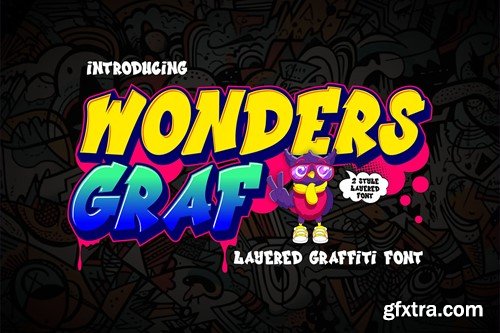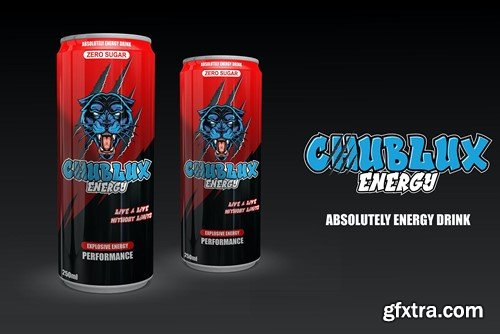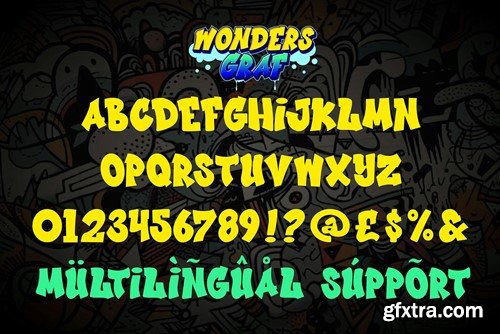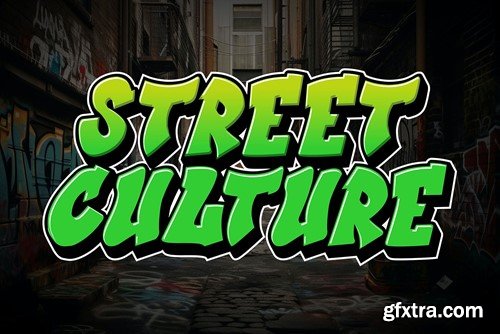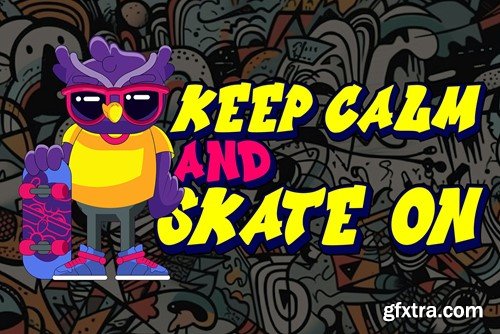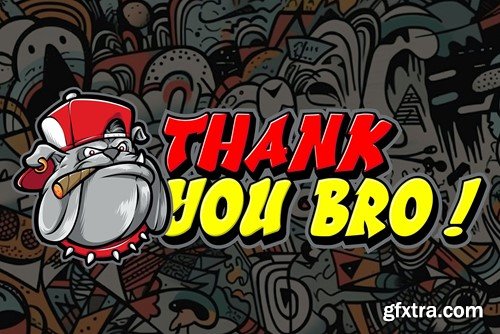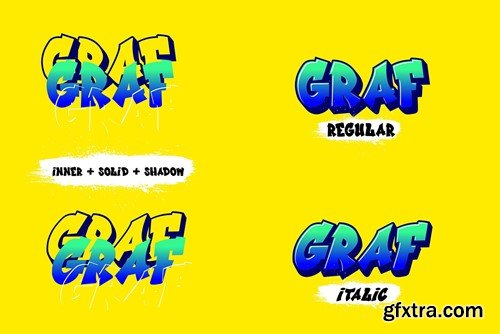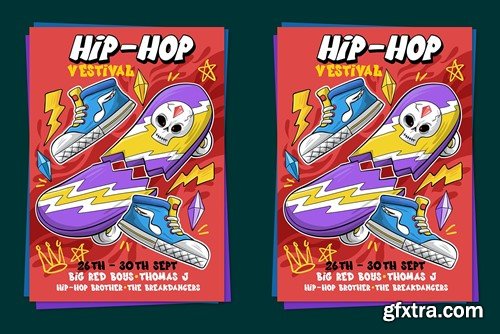
Wonder's Graff - 3D 层叠涂鸦字体 RJCMNWU
Wonders Graff - 3d Layered Graffiti Font RJCMNWU
Wonders Graff - 3d Layered Graffiti Font
Wonder Graff is a graffiti font that features 3 different layers and multiple font styles. With these layers and font style variations, you can create intriguing effects in your design. The use of layers and font styles allows you to achieve more complex and creative looks.
Fonts like Wonder Graff are often used in street art, posters, or designs that want to emphasize bold and energetic typography. With different layer and style options, you have greater control over the appearance of your text and can customize it to fit your design concept.